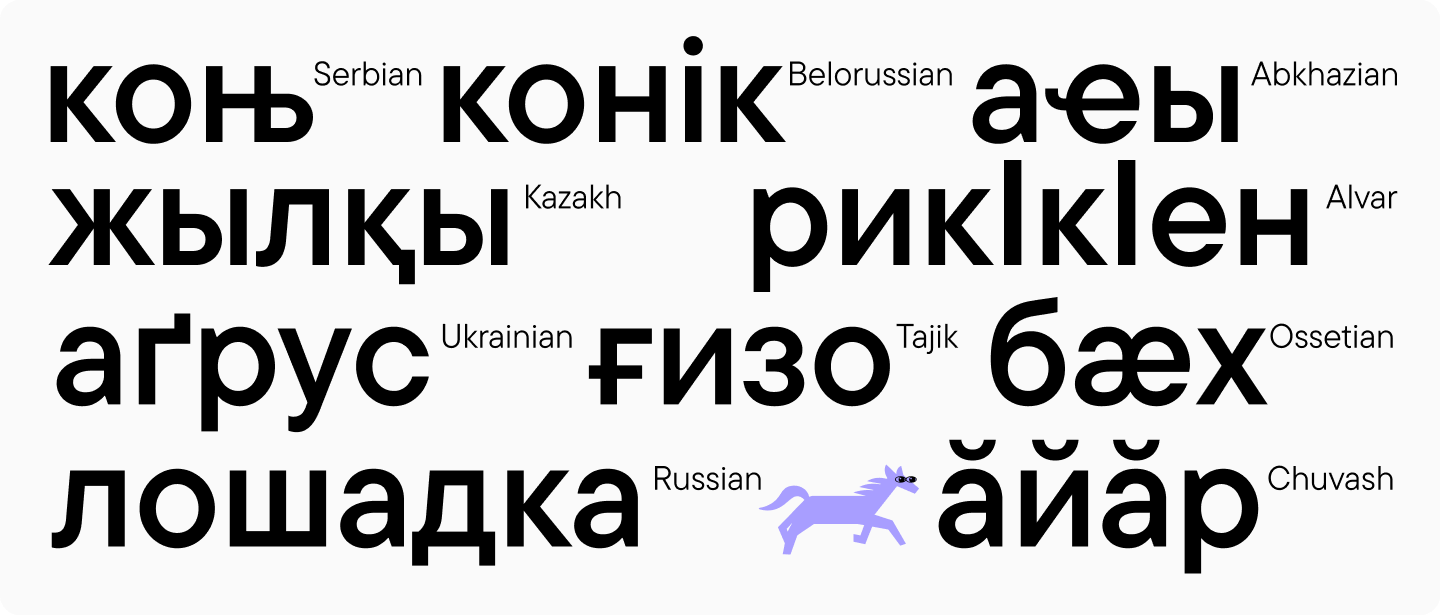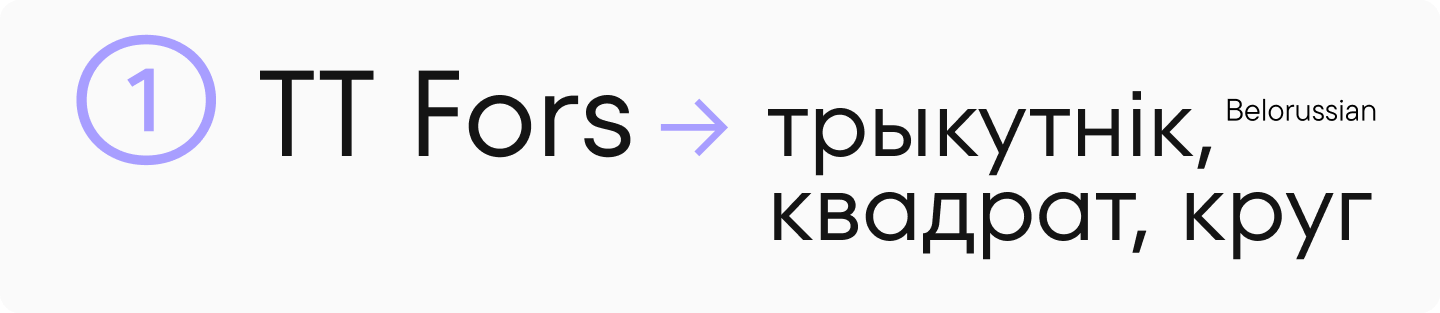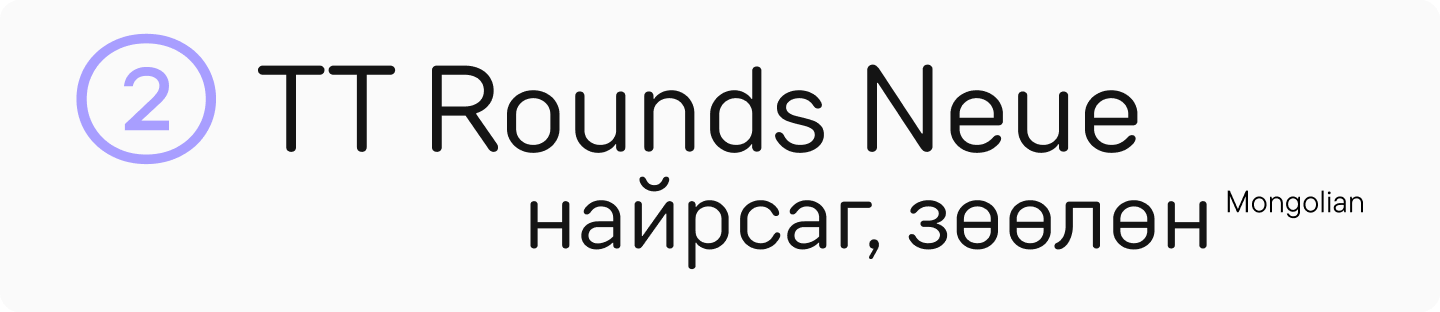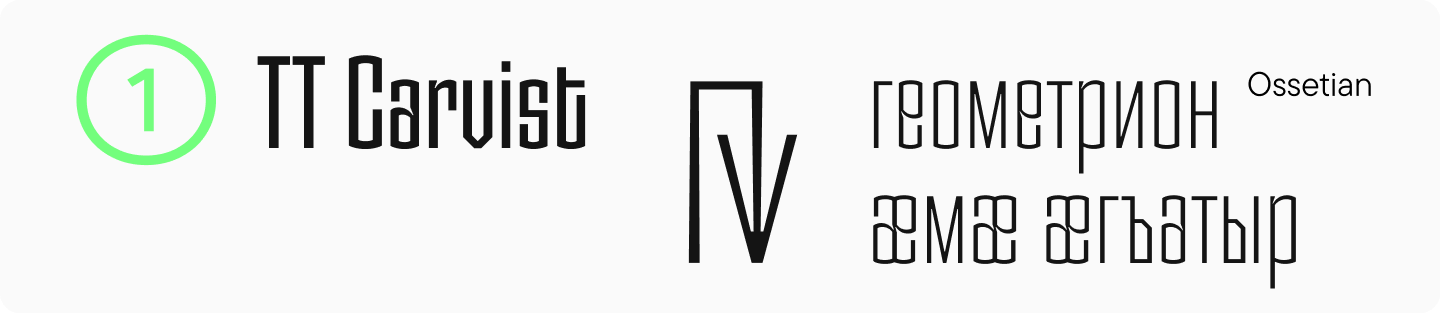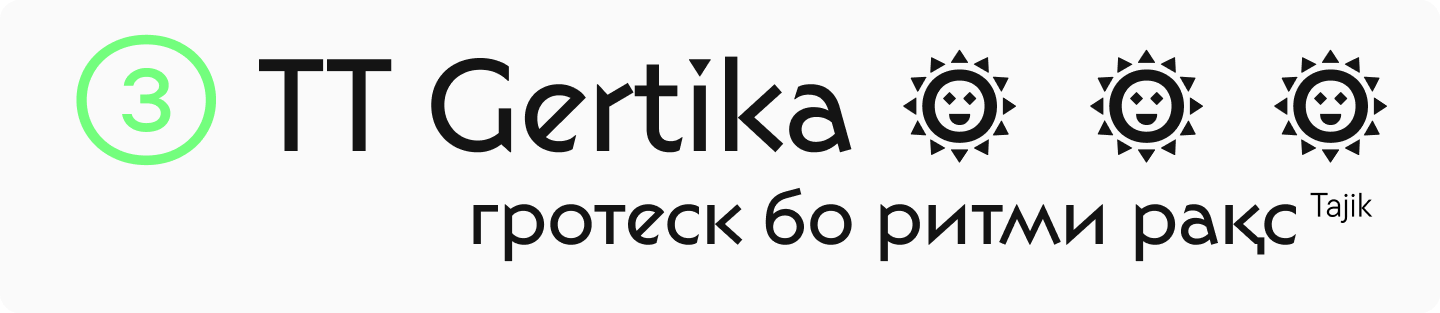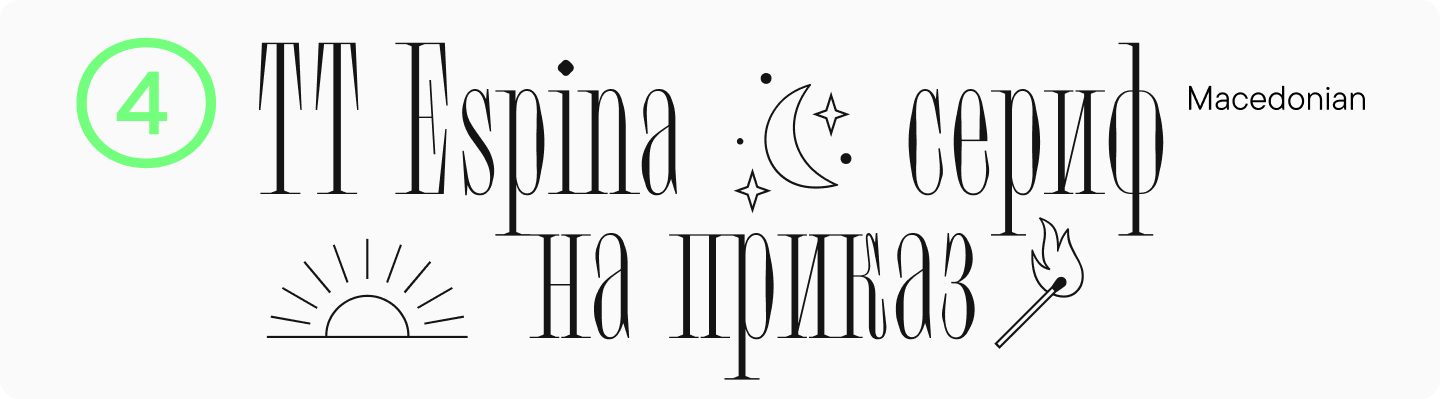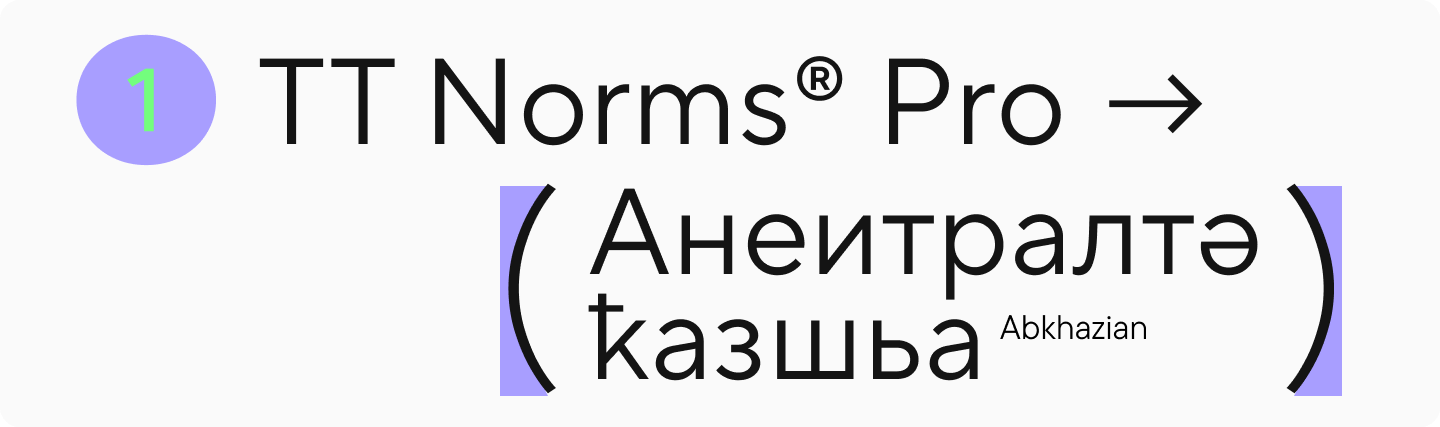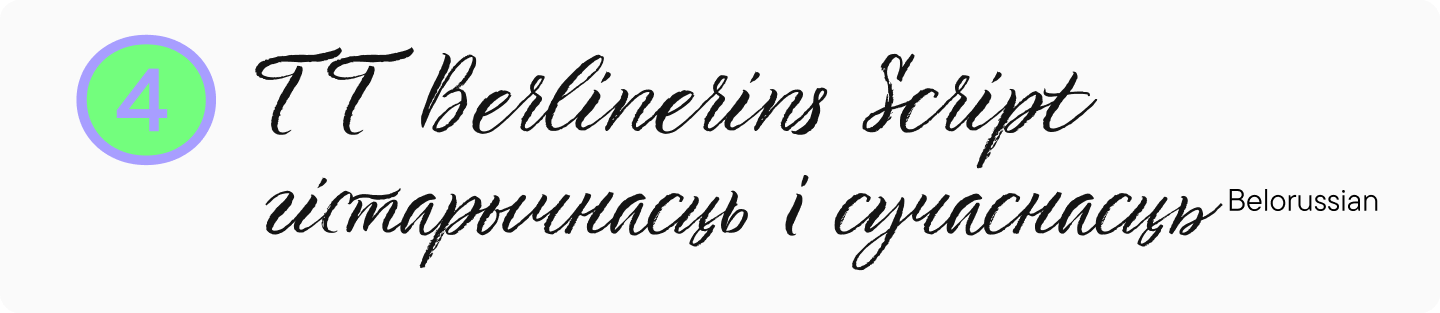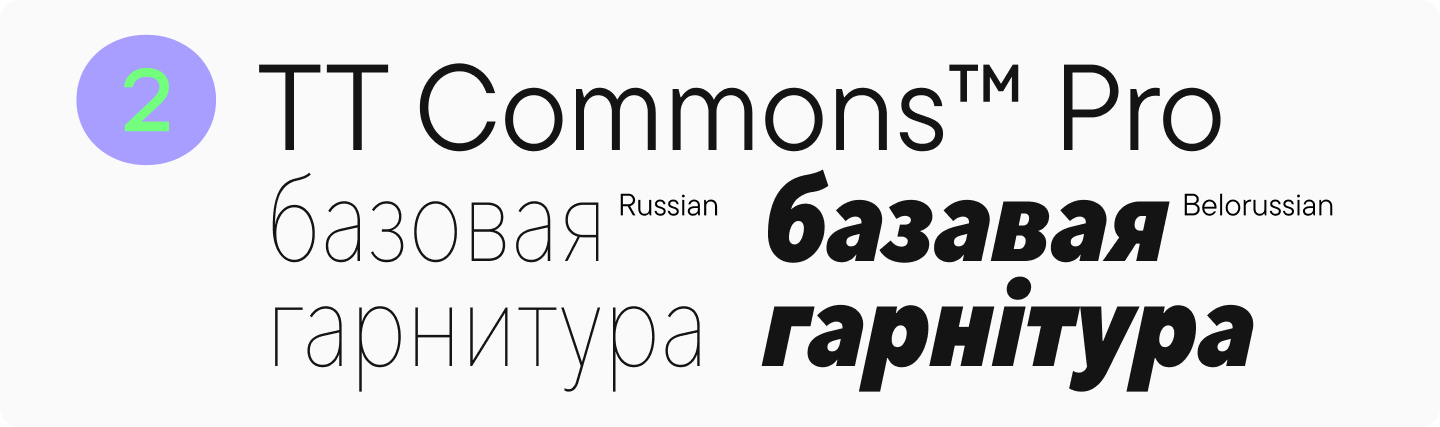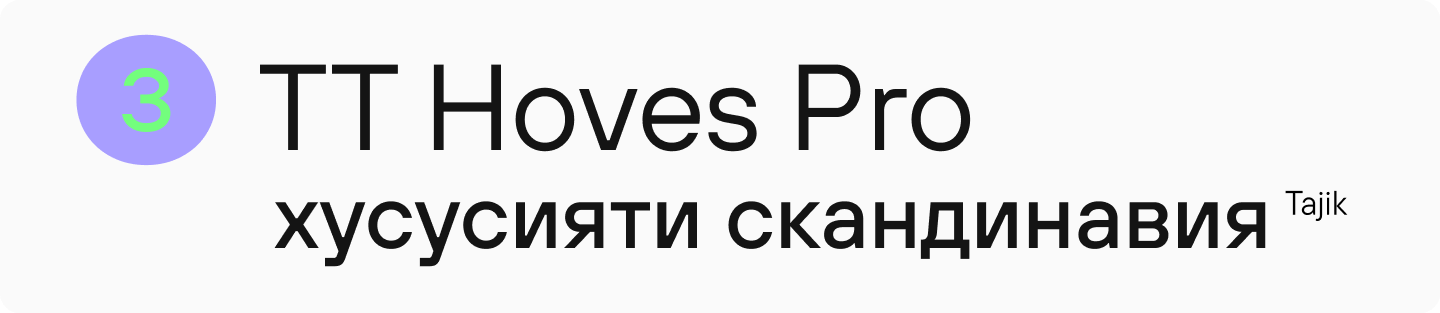
20 Finest Cyrillic Fonts of 2025
Discovering high-quality and authentic Cyrillic fonts may be difficult, as the market primarily affords typefaces with Latin assist. Nevertheless, at our studio, we emphasize broad language assist—significantly in our typefaces that assist quite a few Cyrillic-based languages.
In this text, we’ve compiled a number of useful and fashionable fonts with Cyrillic assist from TypeType’s assortment, appropriate for varied initiatives. You’ll discover impartial and show choices, versatile and script variants, together with new releases for 2025. Moreover, you’ll learn to attempt these fonts and the place to obtain them at no cost.
20 Finest Cyrillic Fonts of 2025
Finest Cyrillic Fonts for Internet Design and extra: TypeType’s Choice
Versatile Bestsellers
Beneath are our studio’s foremost bestsellers, appropriate for a big selection of duties. We repeatedly replace, enhance, and increase these typefaces. Every of these fonts has an intensive character set, supporting the most important variety of languages in our library, together with Cyrillic-based ones.
TT Norms® Professional
TT Norms® Professional is a useful geometric sans serif. This aesthetic and laconic font with a impartial character is appropriate for any function. On one hand, it’s a good «workhorse» that gives impeccable readability and creates even typesetting in textual content plenty. On the opposite hand, it works excellently in massive sizes and is good for creating fashionable accents.
TT Commons™ Professional
TT Commons™ Professional is a minimalist geometric sans serif and one in all the studio’s hottest fonts. Its utility scope is virtually limitless! That is a fundamental typeface appropriate for each on a regular basis duties and creating fashionable designs.
TT Hoves Professional
TT Hoves Professional is a Scandinavian sans serif with a impartial but recognizable character. One among this font’s key traits is a visible lack of distinction. Moreover, horizontal and vertical strokes dominate the glyph design. This useful and aesthetic font permits fixing many various duties.
TT Neoris
TT Neoris is a laconic Neo-Grotesque transformer. This contemporary and authentic font can match into any challenge. At first look, it’s easy and impartial, however its authentic character reveals itself in the main points. Subsequently, in small sizes, the font is legible and doesn’t distract from studying, whereas in massive sizes, it seems to be attention-grabbing and distinctive.
Cyrillic Serif Fonts
We’ve chosen the perfect serif fonts with Cyrillic assist from TypeType’s assortment. The choice contains fonts in varied types—from impartial and versatile to uncommon ones.
TT Marxiana
TT Marxiana is a reconstruction challenge of pre-revolutionary fonts utilized in the 1887 «Niva» journal typesetting. The typeface contains three totally different fonts: TT Marxiana Antiqua, TT Marxiana Grotesque, and TT Marxiana Elzevir. Every was rigorously reconstructed from historic paper sources with nice consideration to element. With these fonts, you’ll be able to create designs in the Nineteenth-century fashion.
TT Norms® Professional Serif
TT Norms® Professional Serif is a useful, self-sufficient, and chic serif with a impartial character. Created primarily based on the TT Norms® Professional sans serif, it works excellently each paired with it and independently. This font has the most important character set amongst TypeType’s serif assortment and intensive language assist, together with Cyrillic. Such a serif font will harmoniously match into virtually any challenge.
TT Ramillas
TT Ramillas is a fashionable transitional serif tailored to fashionable realities and necessities. Its visible options embody excessive distinction, small and flared serifs, a variable slant of ovals, an open aperture, contrasting and skinny stresses, and absence of teardrops. Moreover, it has distinctive ornamental font types and initials adorned with floral ornaments that additionally assist Cyrillic. These ornamental capital letters may be used, for instance, to design the primary paragraphs of books or magazines.